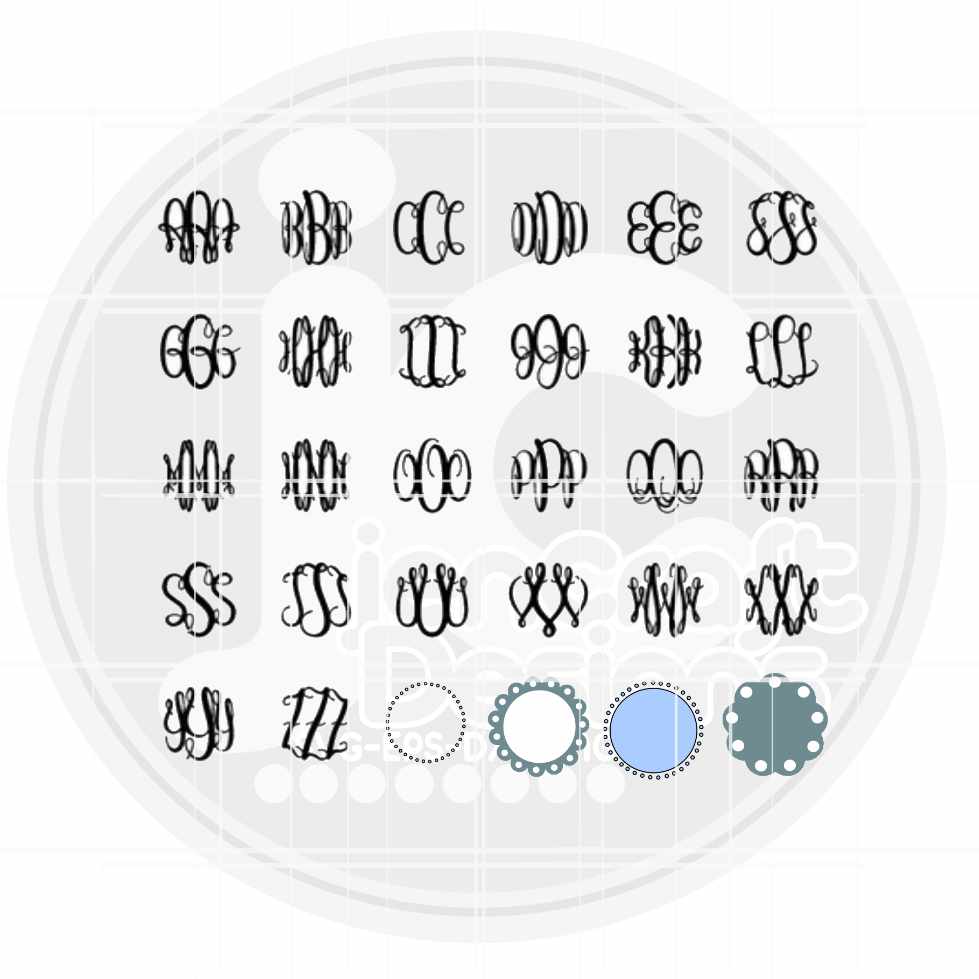
Interlocking Monogram Alphabet | Vine Letters SVG DXF EPS PNG
Create beautiful personalized projects with this elegant Interlocking Vine Monogram Alphabet SVG — a complete A–Z set of interlocking vine-style monogram letters perfect for monogram frames, personalized gifts, tumblers, shirts, signs, and boutique products. Clean-cutting layered files work beautifully with Cricut, Silhouette, Glowforge, and more.